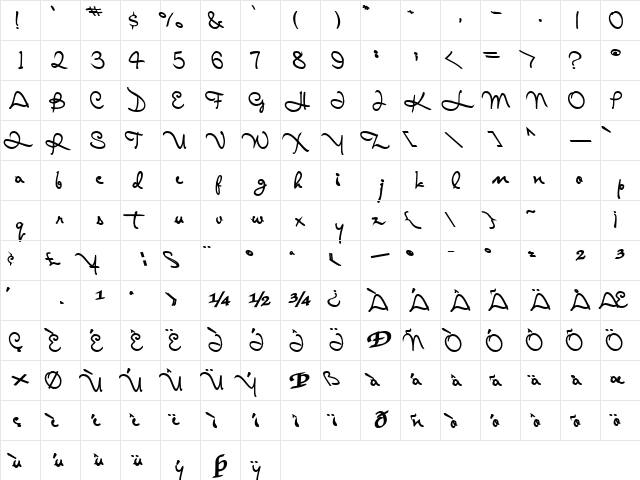
AlicoScriptSSK Bold Free Font
AlicoScriptSSK Bold
Style: Bold
Design Context for AlicoScriptSSK
AlicoScriptSSK flows with the natural rhythm of handwritten lettering, making it ideal for designs that call for warmth and personal expression. Its bold stroke weight gives it real presence on the page.
Font Pairing: Combine AlicoScriptSSK with a simple geometric sans for maximum contrast - the tension between flowing curves and clean structure is a classic typographic pairing.
Pro Tip: Use AlicoScriptSSK for short runs of text - names, titles, or taglines. Extended body copy in script faces tires the eye quickly.